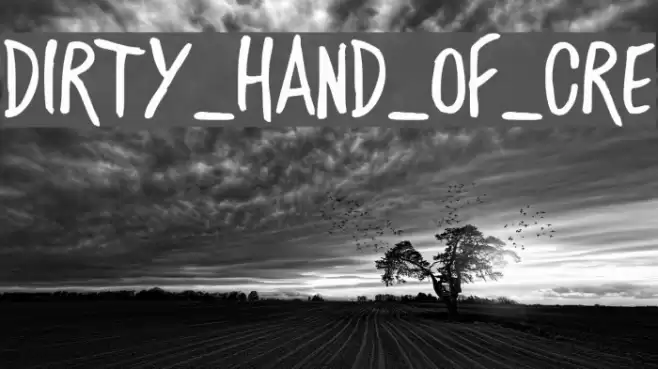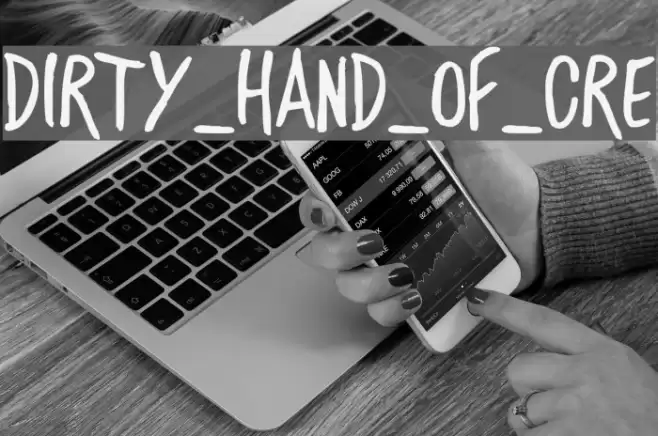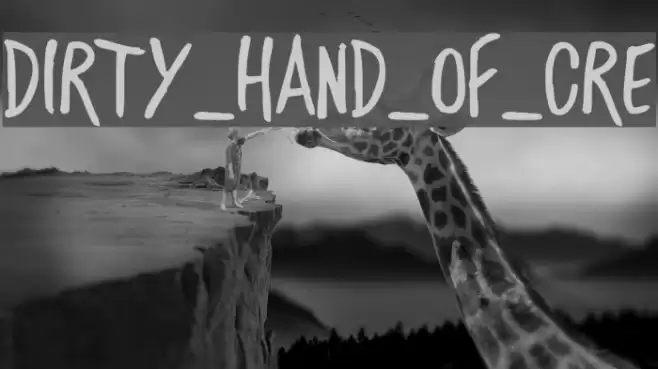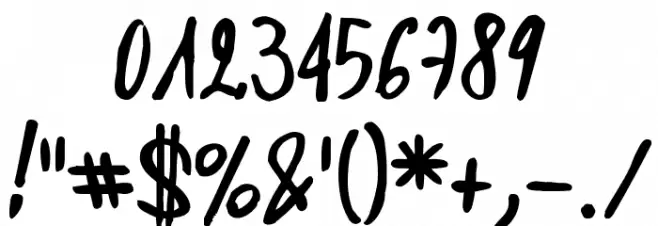
DIRTY_HAND_OF_CRE Font
DIRTY_HAND_OF_CRE Description
This font exudes a raw, hand-drawn aesthetic, characterized by its irregular strokes and playful, informal style. The uppercase and lowercase letters maintain a consistent, casual flow, with each character exhibiting unique quirks that enhance its handwritten appeal. The numbers and special characters follow suit, offering a cohesive look across the entire set. The font's organic feel is accentuated by its uneven line thickness, giving it a dynamic and lively appearance. This style is perfect for projects that require a personal touch or a sense of spontaneity.
A playful, hand-drawn font with irregular strokes and a casual, informal style from Uncategorized fonts.